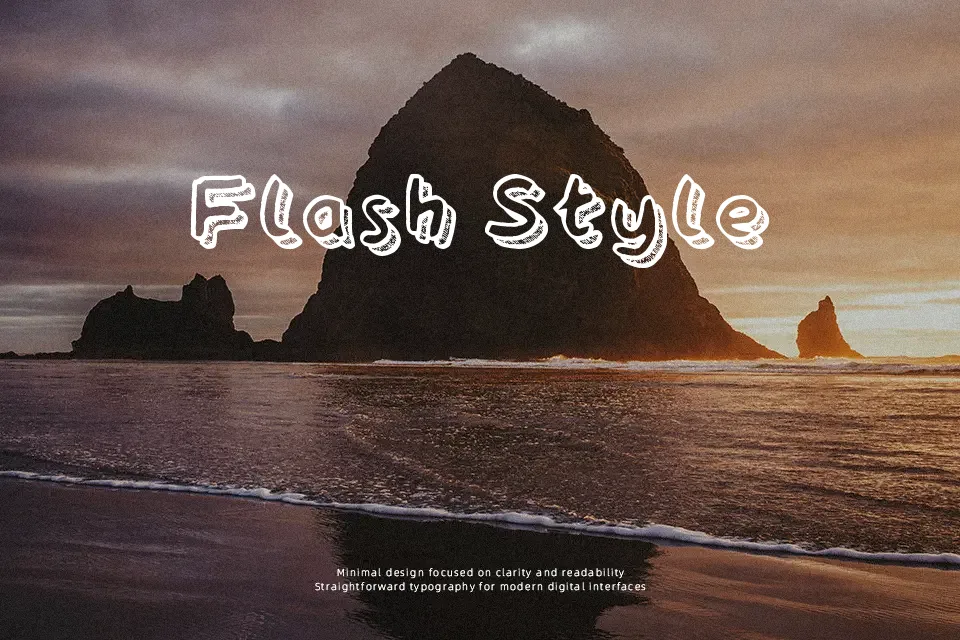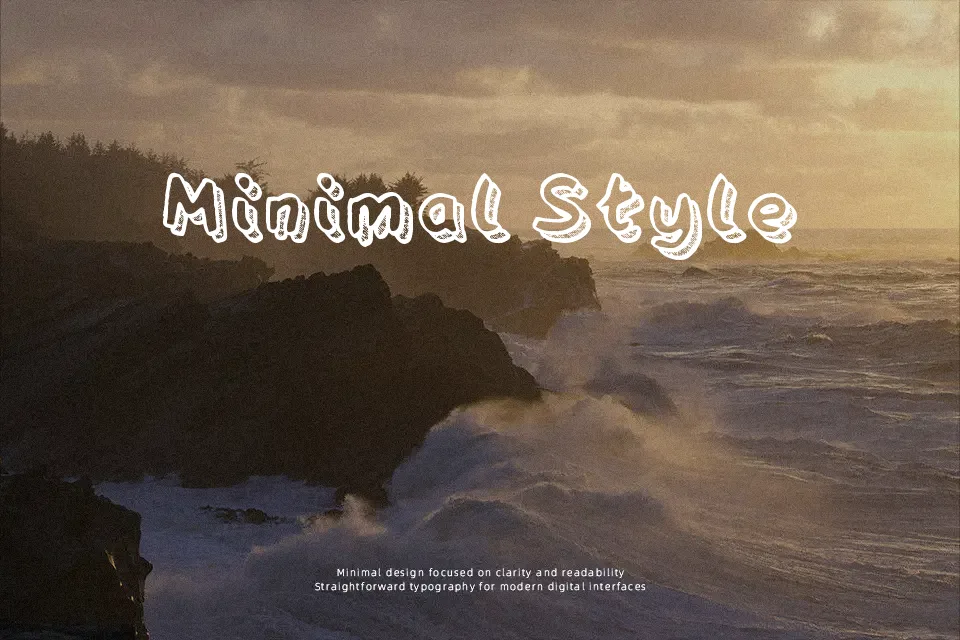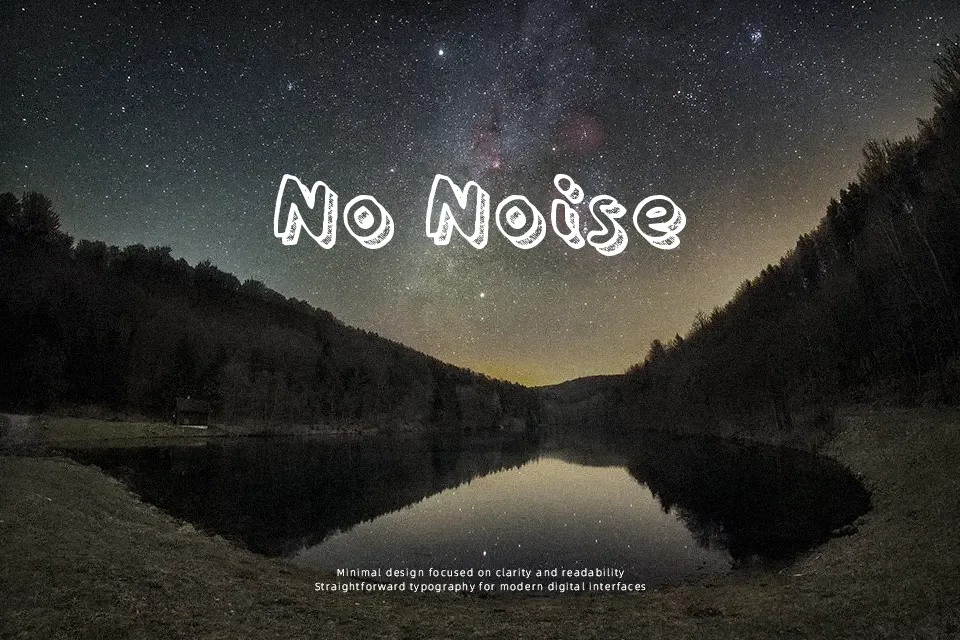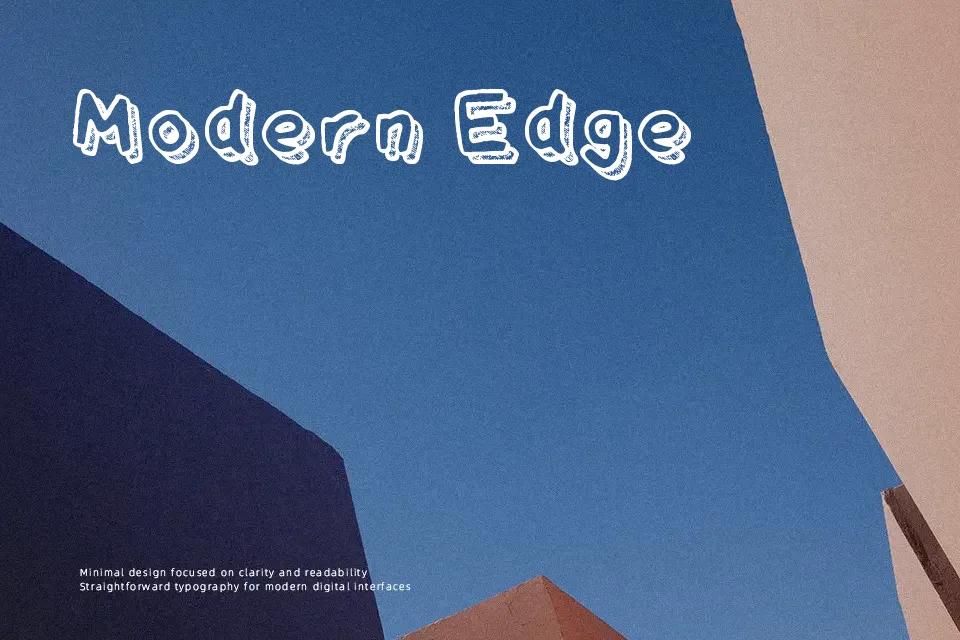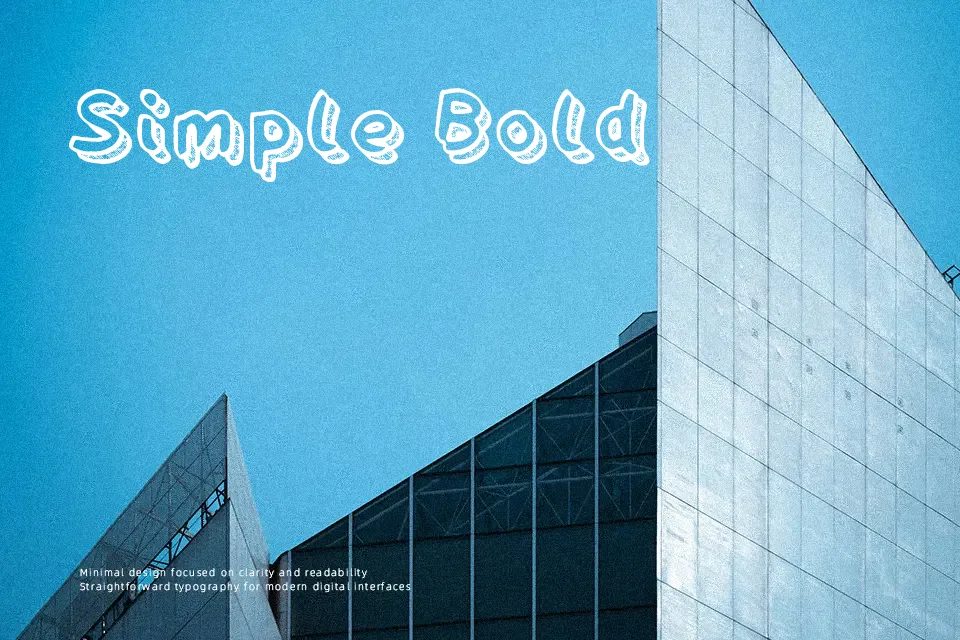
Playtime Font
Designed by Chequered Ink
Playtime Font uses heavy rounded forms with an offset, layered treatment that gives the characters a simple dimensional presence. The strokes appear broad and mostly even, while the compact proportions keep words visually dense and energetic. Uppercase and lowercase letters follow the same playful construction, and the visible numerals hold up clearly in short labels. It reads most comfortably in large titles, stickers, or children-oriented graphics, where its silhouette can do the work. The close, chunky forms provide strong impact in display settings, but small text and long passages become harder to scan.
Best For: children’s event posters,game title screens,party invitations,playful product labels
Not Ideal For: long paragraph text,small interface labels,formal business reports,dense editorial layouts